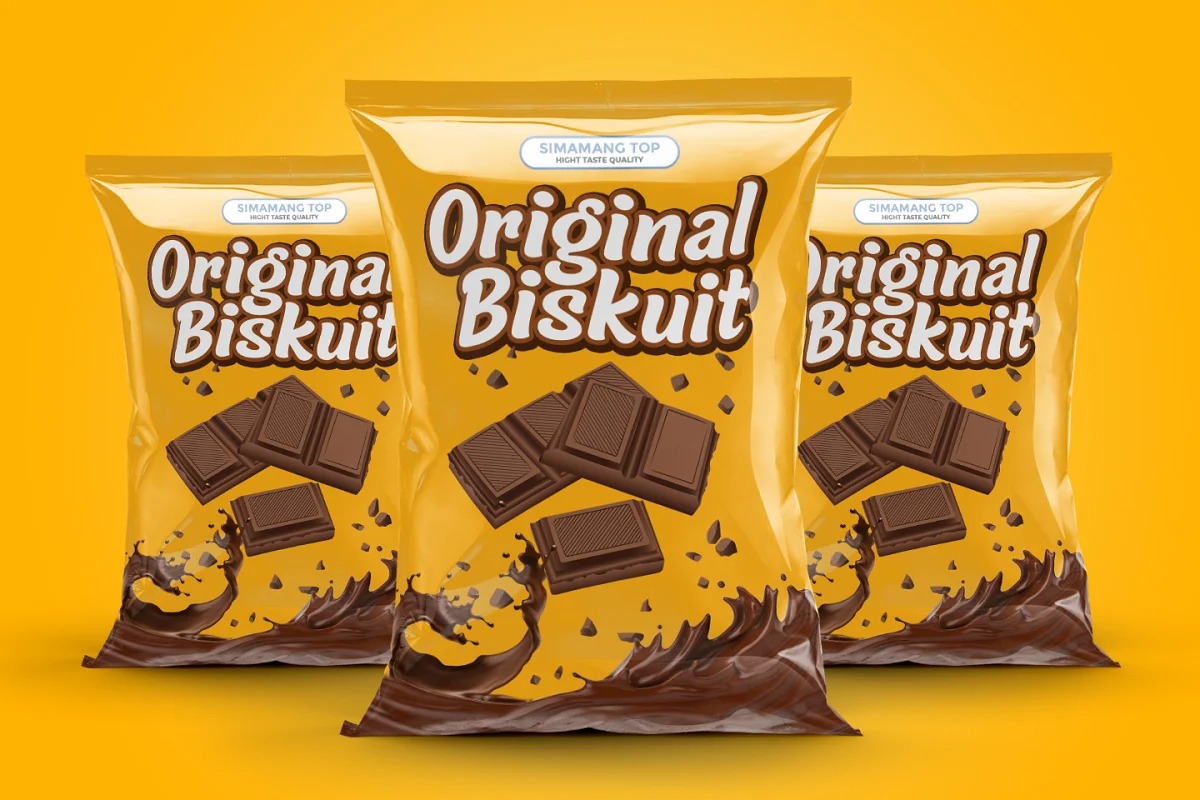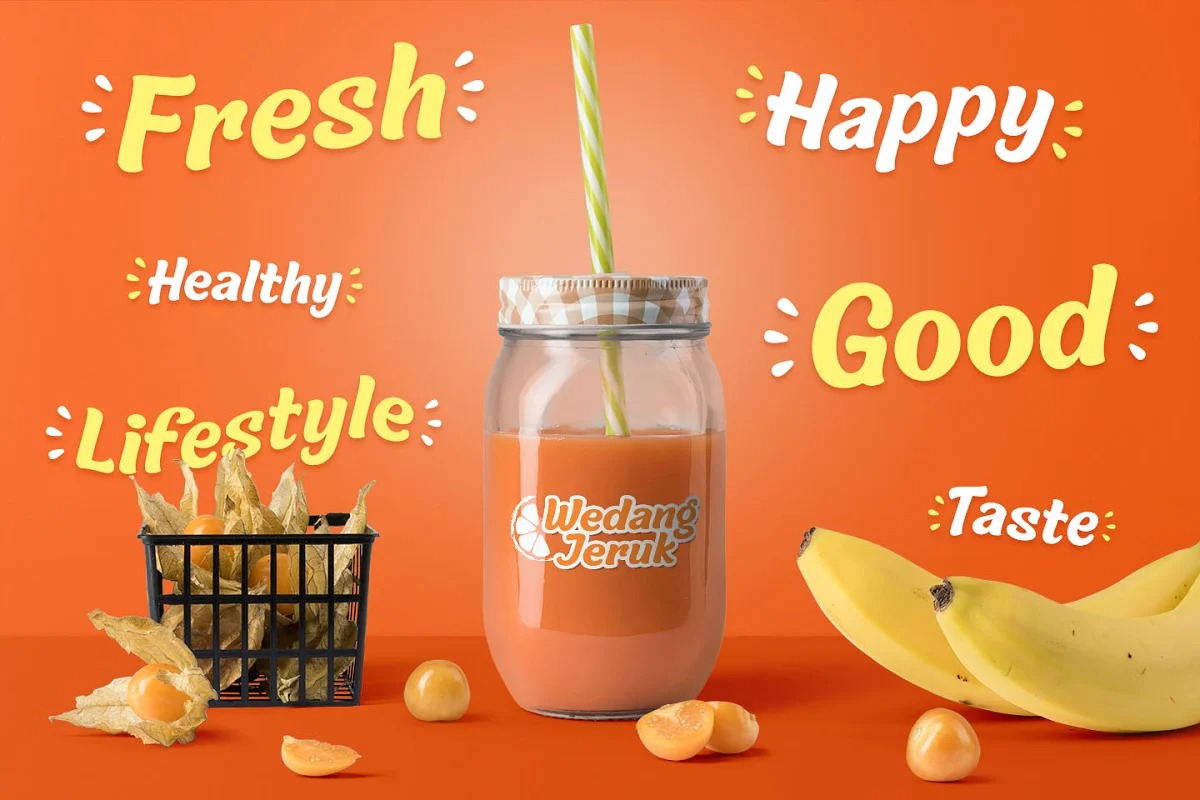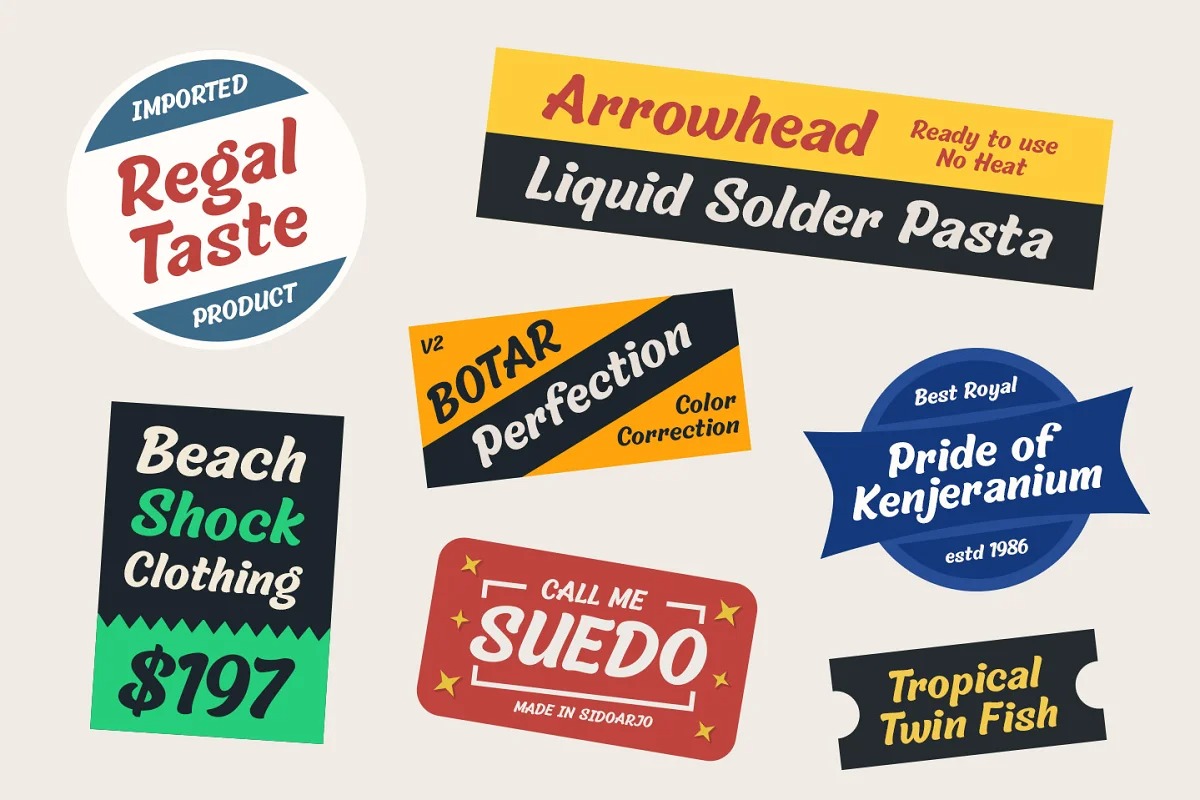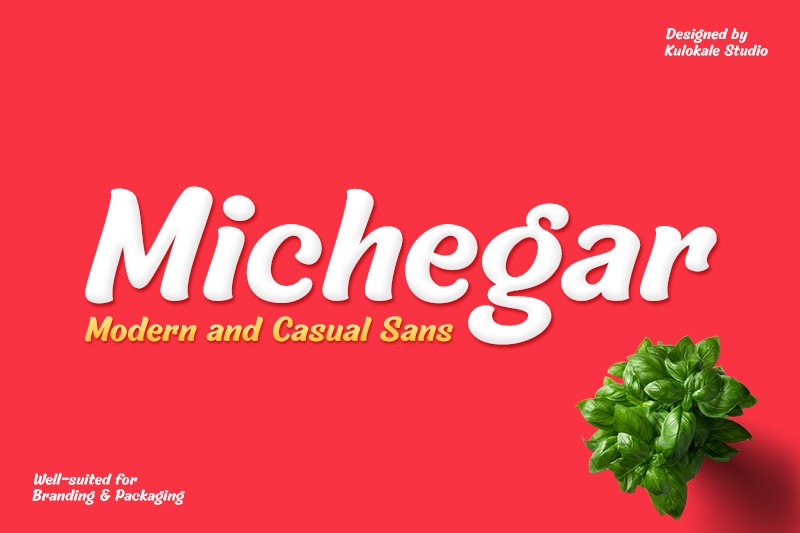
Michegar Display Font
This is a simple sans serif display typeface. But it can be used in a variety. Michegar is well-suited for advertising, branding, logotypes, packaging, titles, headlines and editorial design.